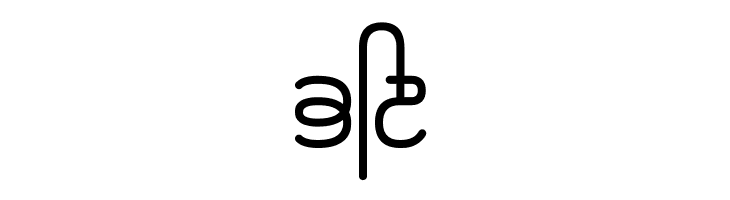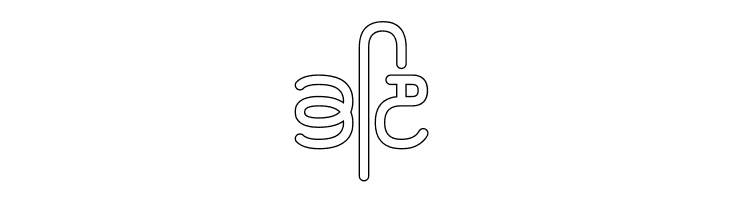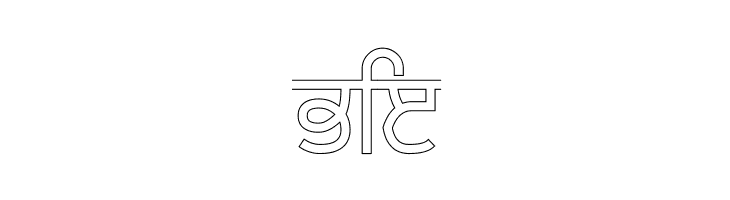
A modern, decorative font with rounded, flowing letterforms and consistent stroke width.
Modern, geometric Gurmukhi script with monolinear strokes.
A bold, outline font with rounded, flowing characters for modern, decorative use.
A bold, decorative font with abstract and flowing letterforms, ideal for artistic projects.
A clean, geometric font with medium weight and balanced proportions.
A modern, outline-style font with a light and airy appearance.
A bold, artistic font with a blend of geometric and organic shapes, perfect for creative projects.
A modern, thin, geometric font with rounded corners and a minimalistic style.
A modern outline font with thin borders and geometric precision.
A bold, decorative font with a double-line border effect.